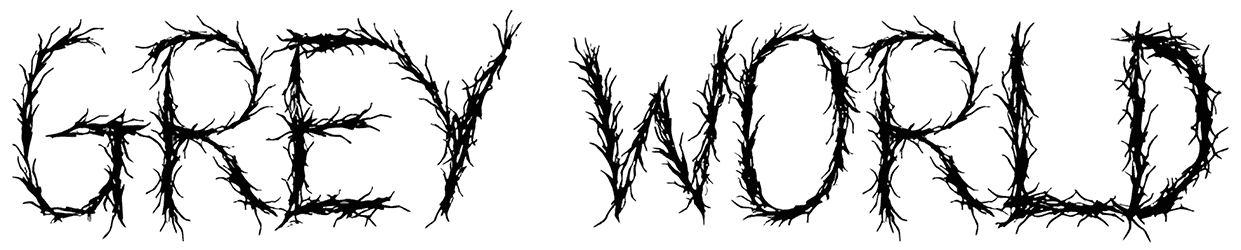
Grey World Font
The atmosphere of the forest and meadows in the dark aura always inspires a sense of fear and dread. This is what made Grey World a successful horror font in the design world.
This forest font, which doesn’t include small letters and numbers and has two different styles for capital letters, has created a state of flames around each letter. So if you’re looking for a unique poster design or want to multiply your Halloween gift sales, start working with Grey World.
Grey World font made by Poemhaiku 2015. It supports multiple languages.